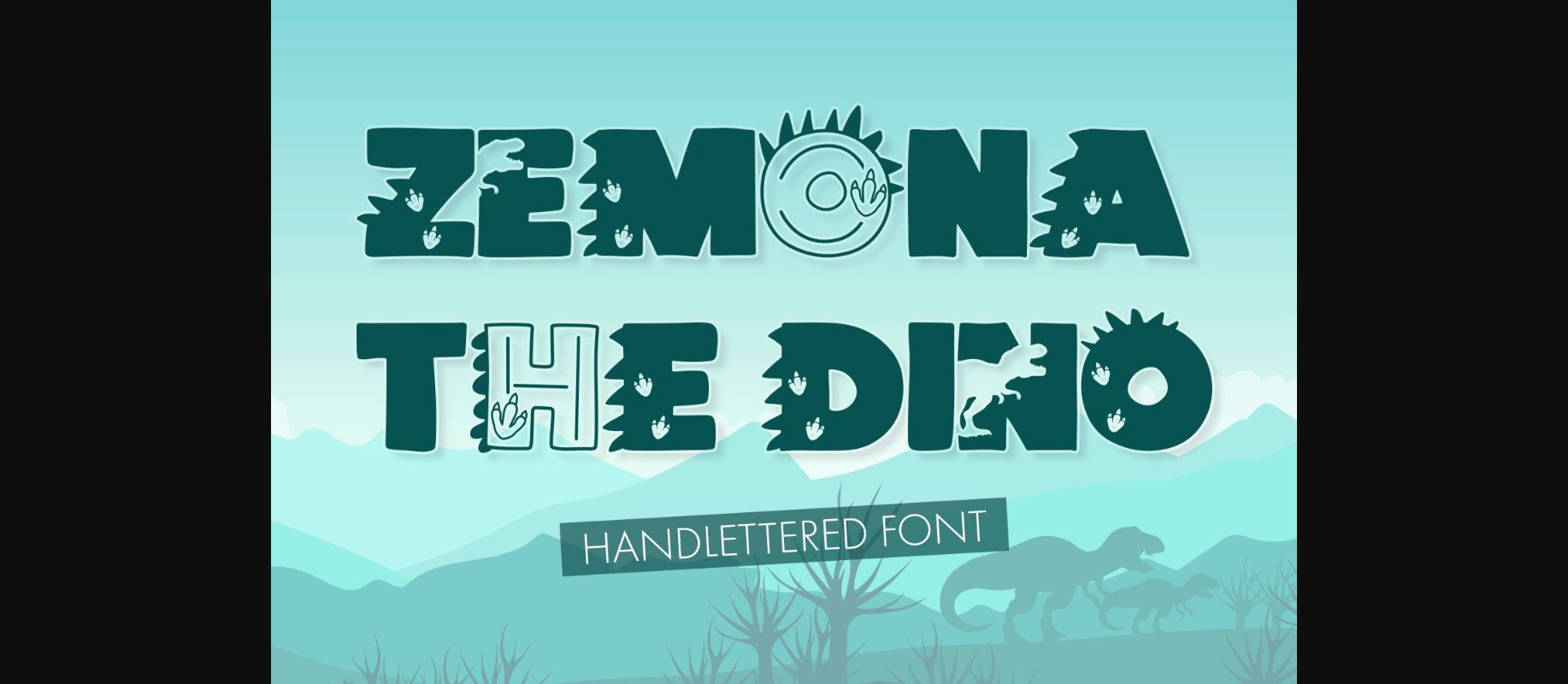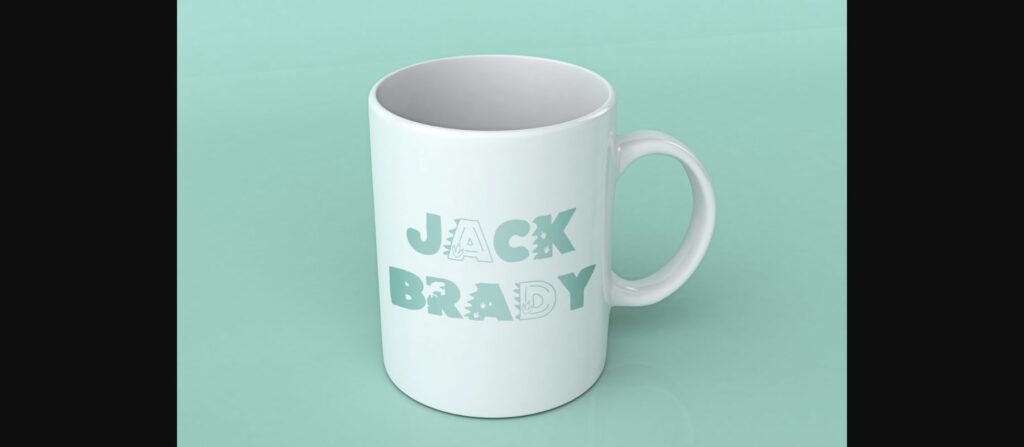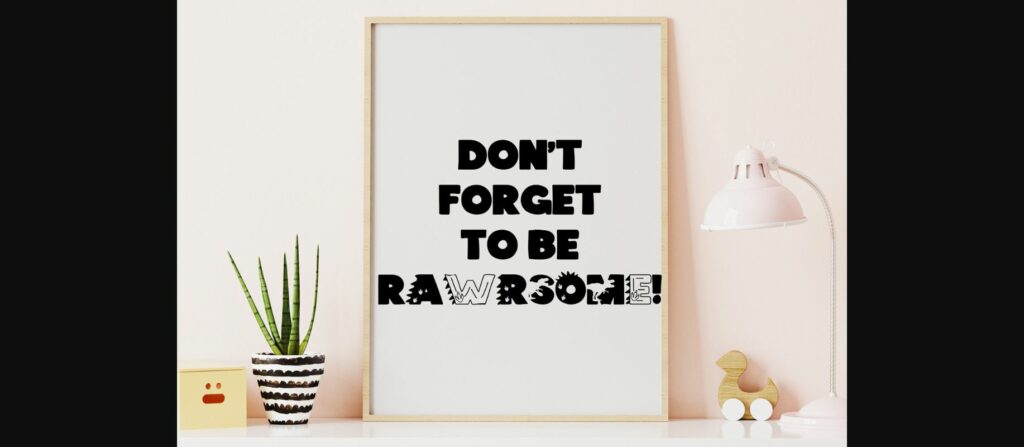
Zemona the Dino Font
About Zemona the Dino Font
Zemona the Dino is a fun, friendly and thick lettered decorative font. It embodies playfulness and authenticity and is the perfect choice for any children activity or school project.